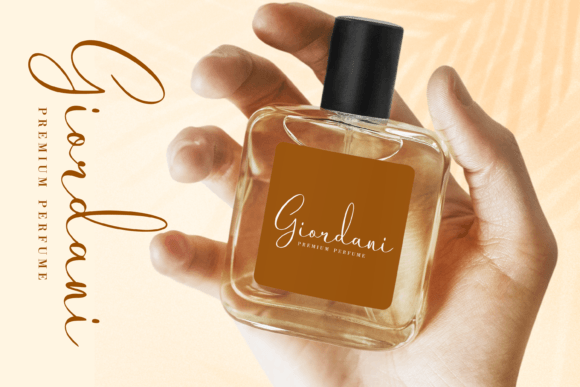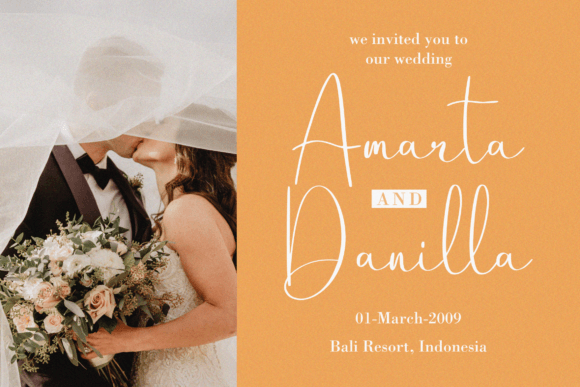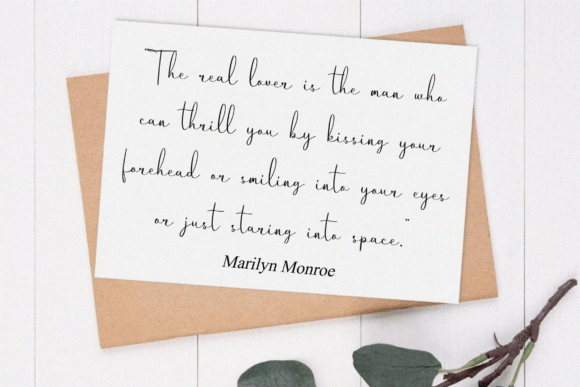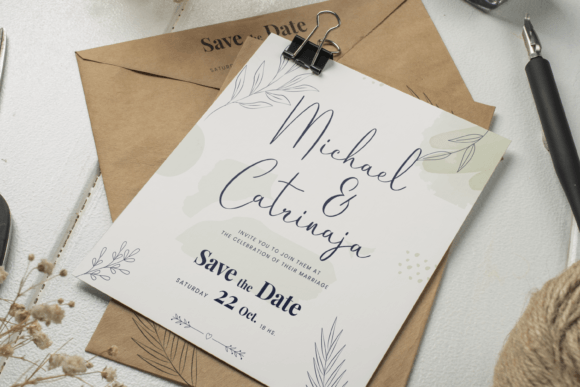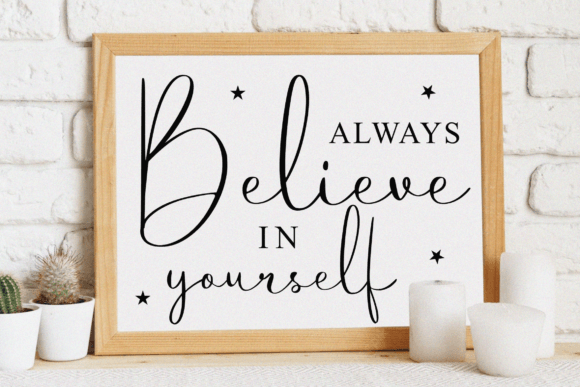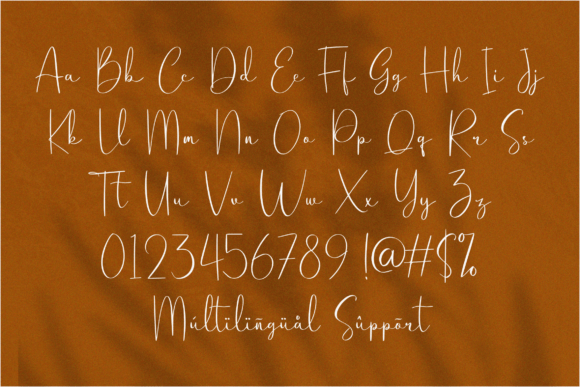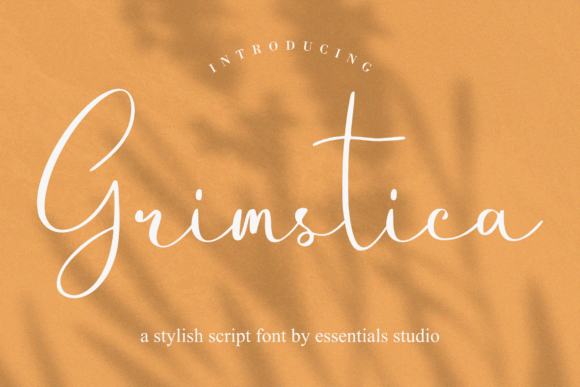
Grimstica Font: Elevate Your Designs with a Stylish Script Font
In the world of typography, a stylish script font can make all the difference in elevating your designs to the next level. Grimstica Font is a beautiful, elegant, and versatile script font that can add a touch of sophistication to any design project. Whether you’re a designer, crafty DIY enthusiast, or simply someone who appreciates great typography, Grimstica is a font that deserves your attention.
What is Grimstica Font?
Grimstica Font is a stylish script font designed to add a touch of elegance and sophistication to your designs. Its flowing lines, beautiful swashes, and classic feel make it perfect for a wide range of applications, from product packaging and branding projects to magazines, social media, and weddings.
Key Features of Grimstica Font
- Stylish and Elegant: Grimstica Font boasts a stylish and elegant design, making it perfect for designs that require a touch of sophistication.
- Versatile: This font is versatile and can be used for a wide range of applications, from product packaging to weddings and social media.
- Script Font: Grimstica is a script font with flowing lines and beautiful swashes, adding a touch of elegance to any design.
- Easy to Read: Despite its elegant design, Grimstica is easy to read, making it perfect for body text and headlines.
Use Cases for Grimstica Font
Grimstica Font is perfect for a wide range of design projects, including:
- Product Packaging: Add a touch of elegance to your product packaging with Grimstica Font.
- Branding Projects: Use Grimstica to create a sophisticated brand identity that stands out from the crowd.
- Magazines and Editorials: Grimstica is perfect for magazine and editorial designs that require a touch of elegance.
- Social Media: Use Grimstica to create eye-catching social media graphics that grab attention.
- Weddings: Grimstica is a great choice for wedding designs, including invitations, programs, and more.
Why Choose Grimstica Font?
There are many script fonts available, but Grimstica stands out from the crowd for several reasons:
- Unique Design: Grimstica has a unique design that sets it apart from other script fonts.
- High-Quality: This font is designed with high-quality and precision, ensuring that it looks great in any design.
Tips for Using Grimstica Font
Here are some tips for using Grimstica Font in your designs:
- Use it Sparingly: While Grimstica is a beautiful font, it can be overpowering if used excessively. Use it sparingly to add a touch of elegance to your designs.
- Pair it with Other Fonts: Grimstica pairs well with other fonts, including sans-serif fonts. Experiment with different pairings to find the perfect combination.
- Adjust the Size: Adjust the size of Grimstica to create visual hierarchy in your designs.
- Experiment with Colors: Grimstica looks great in a variety of colors. Experiment with different colors to find the perfect shade for your design.